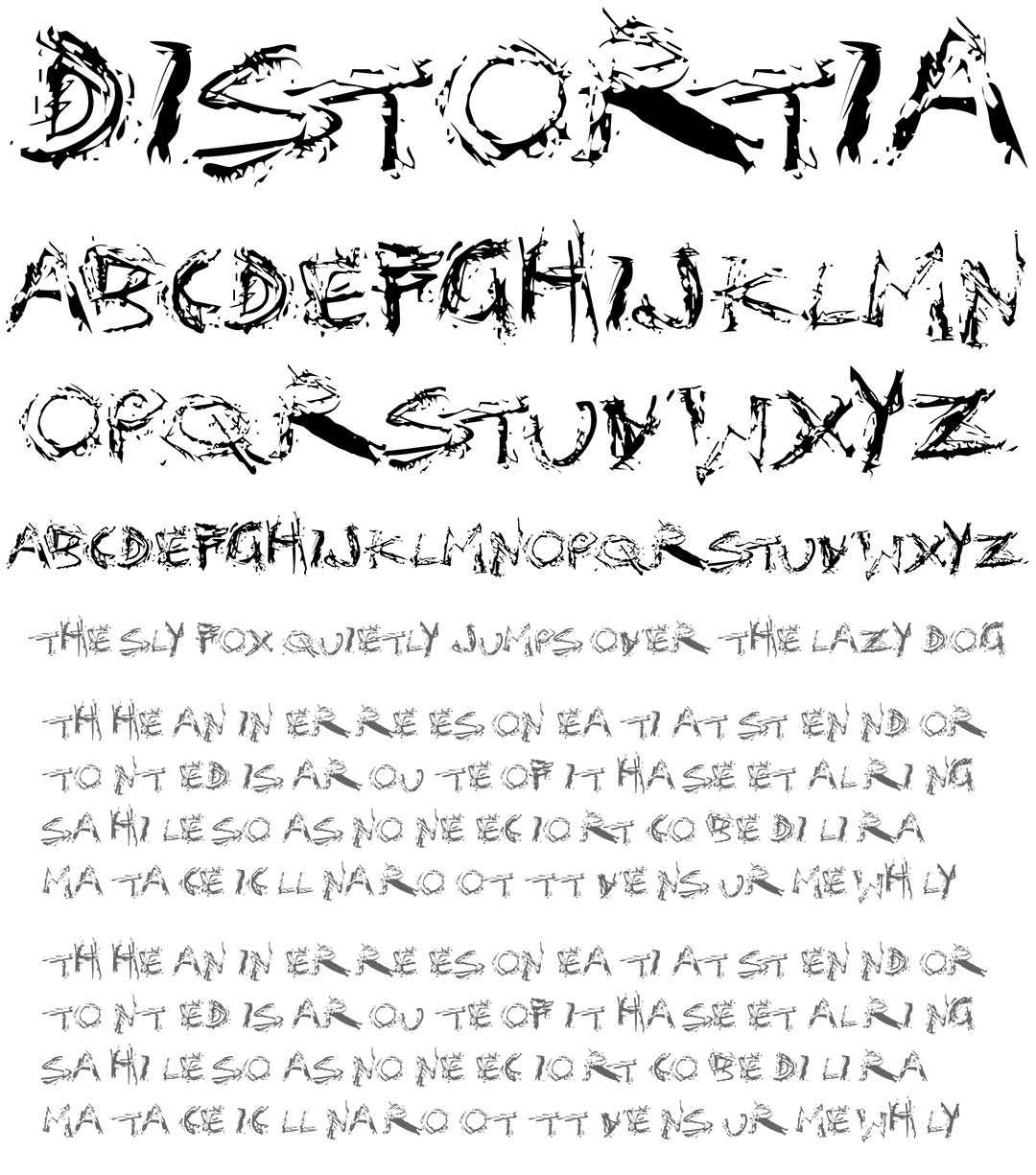
Distortia
Distortia Graffiti Alphabet
Distortia Graffiti Font Family
This very rough font features heavy streaks & scratches on every stroke. The distorted, all caps letter style is not exactly tagging but clearly fits the look of paint, ink or blood smeared on a wall.